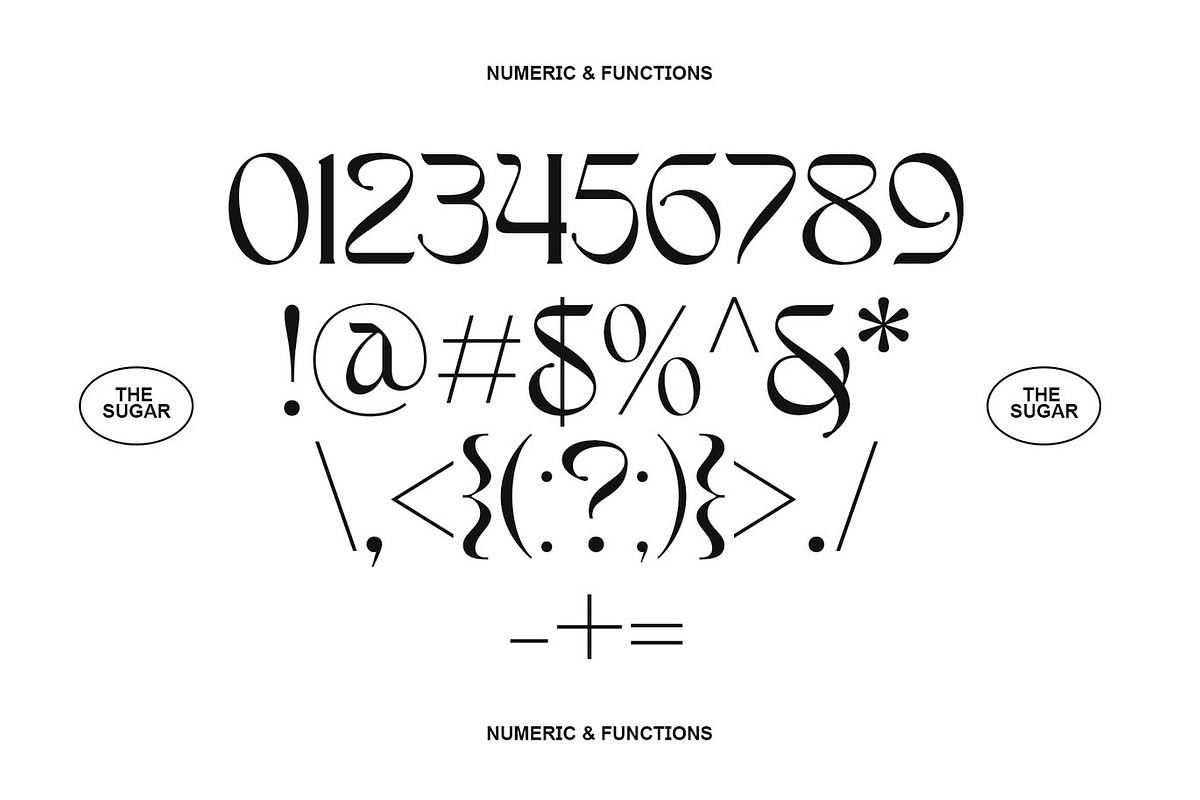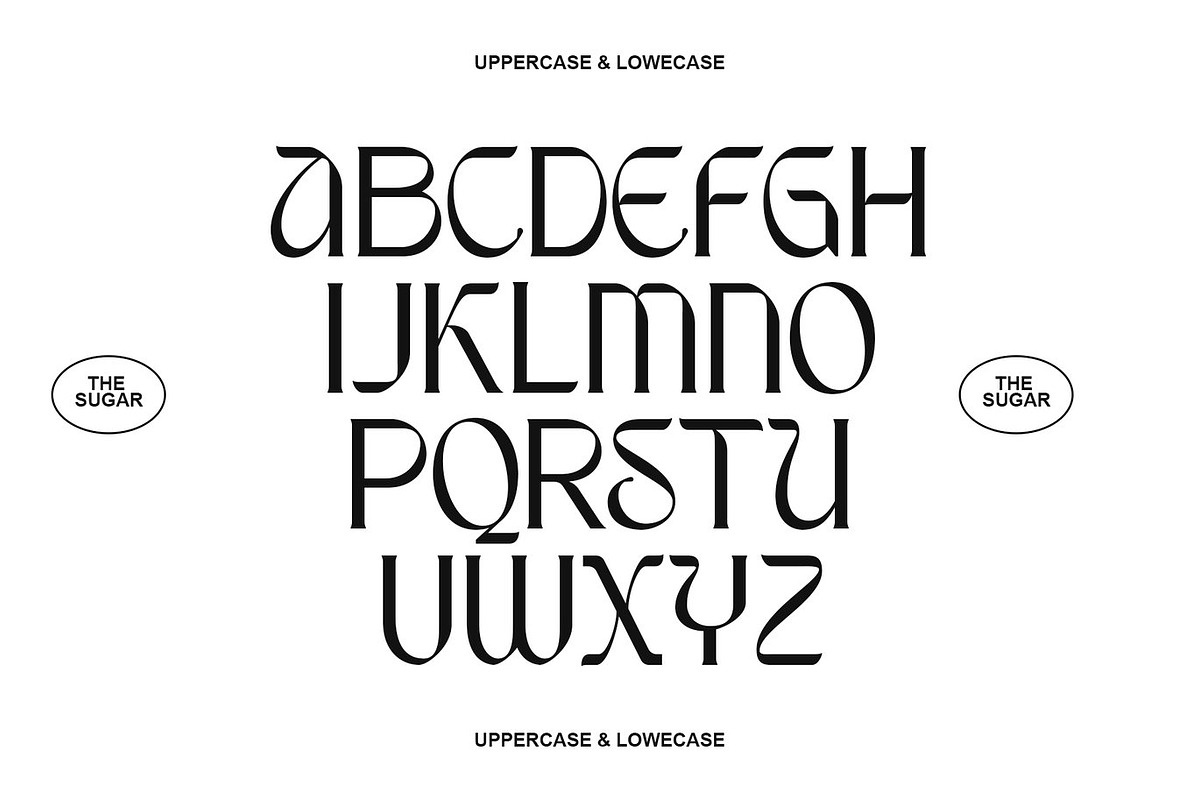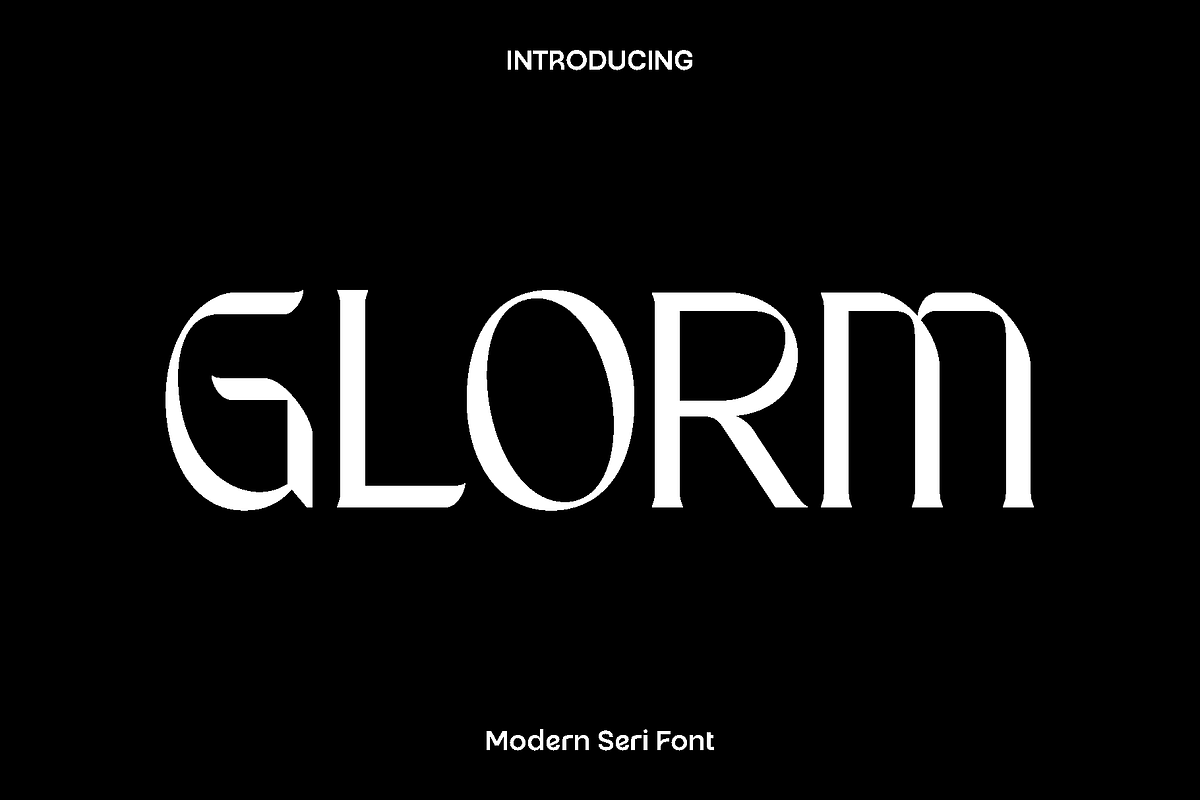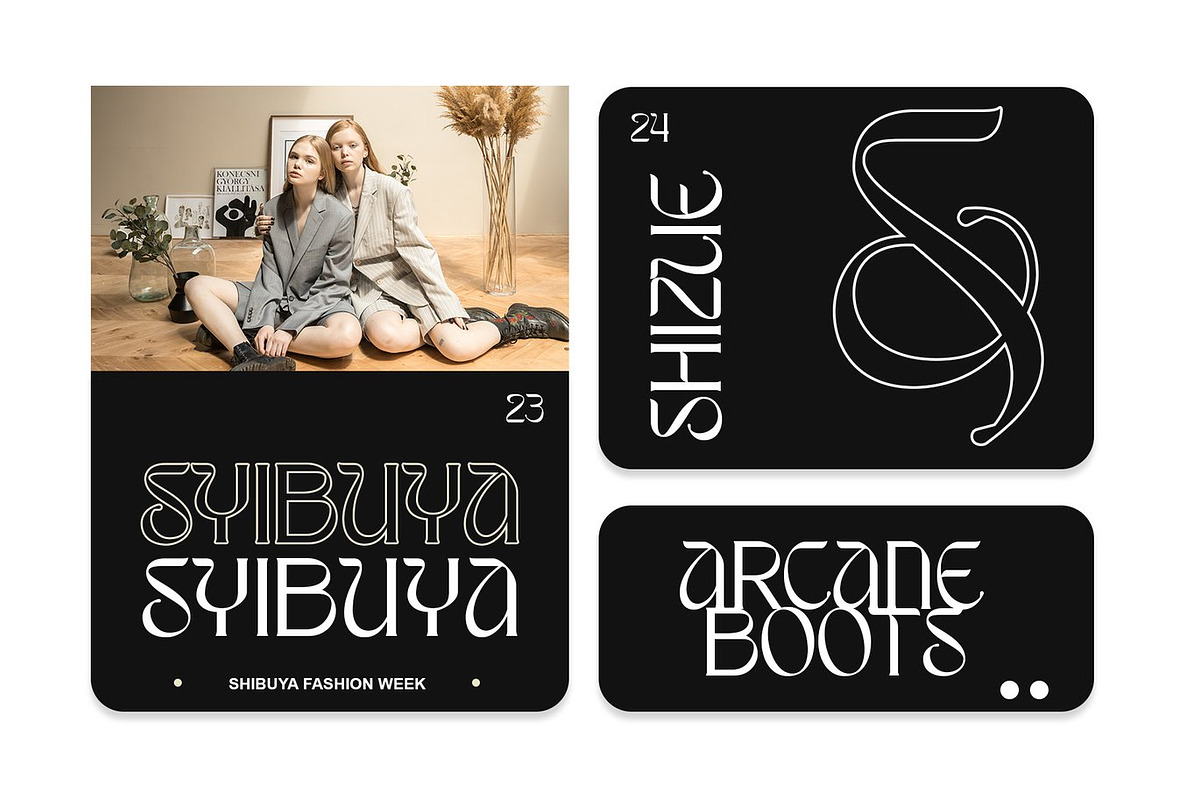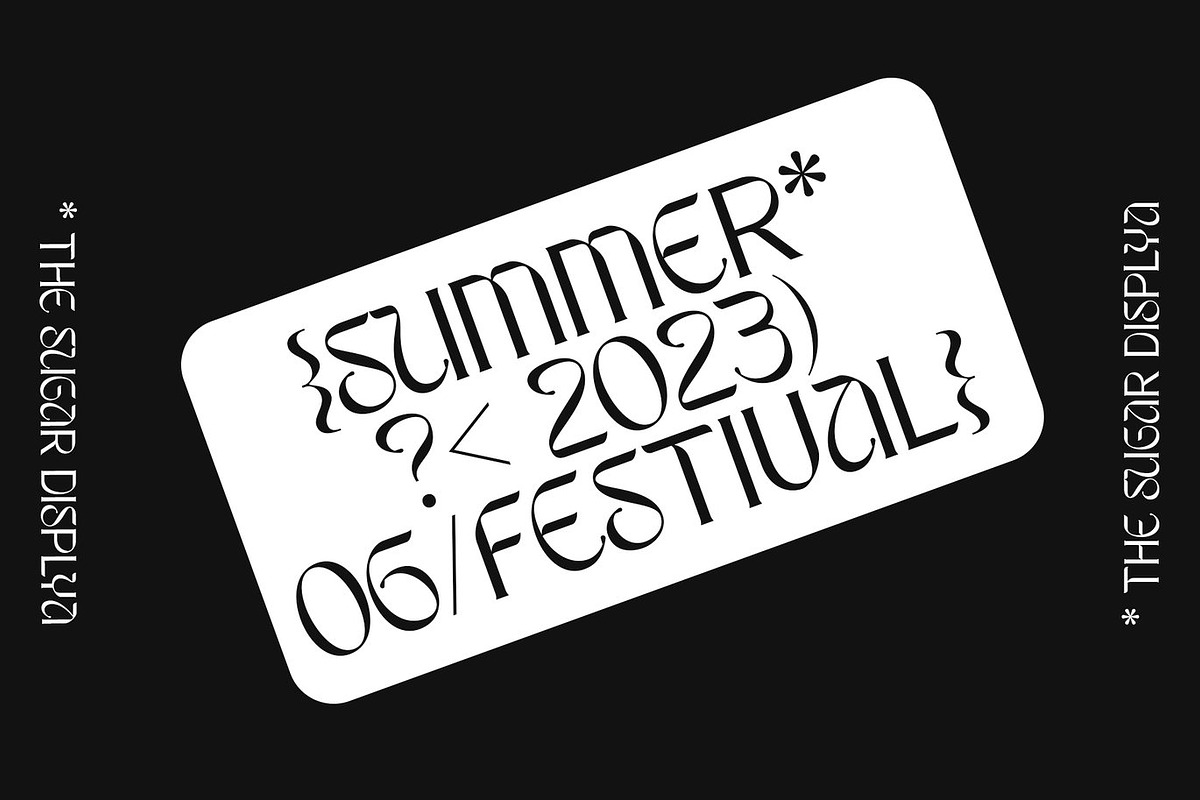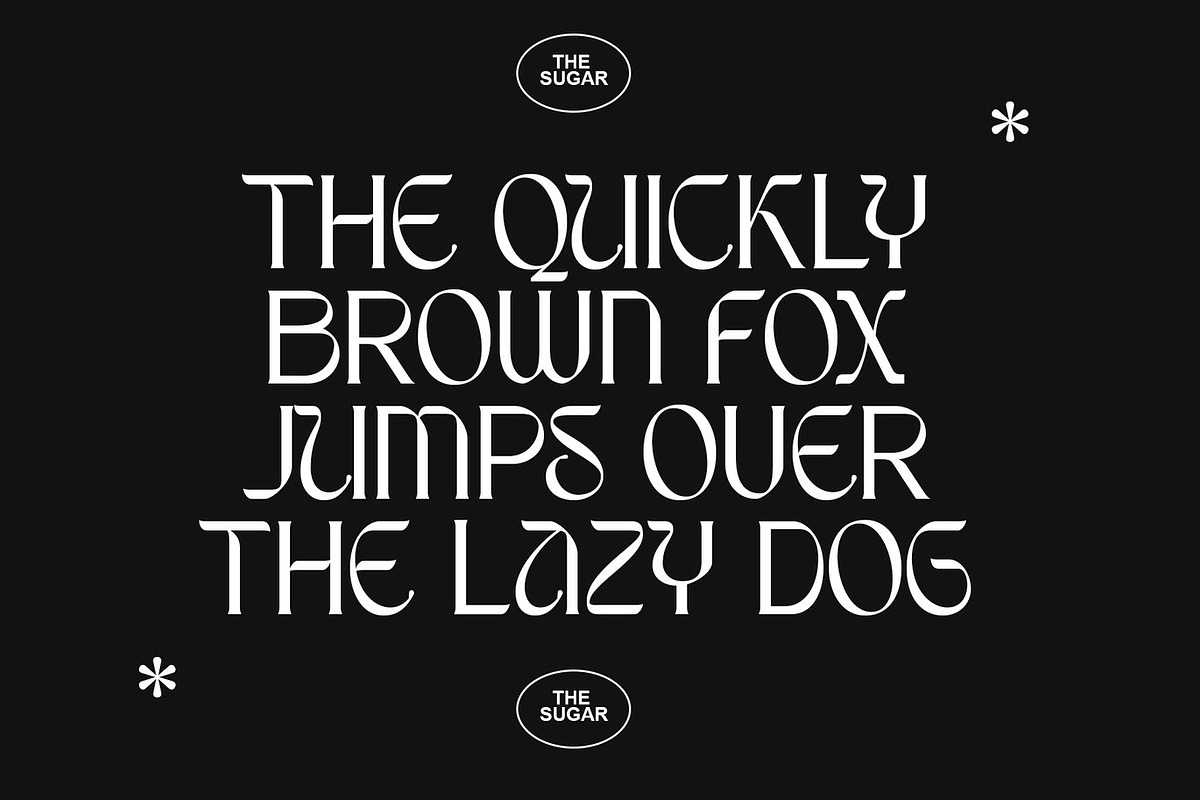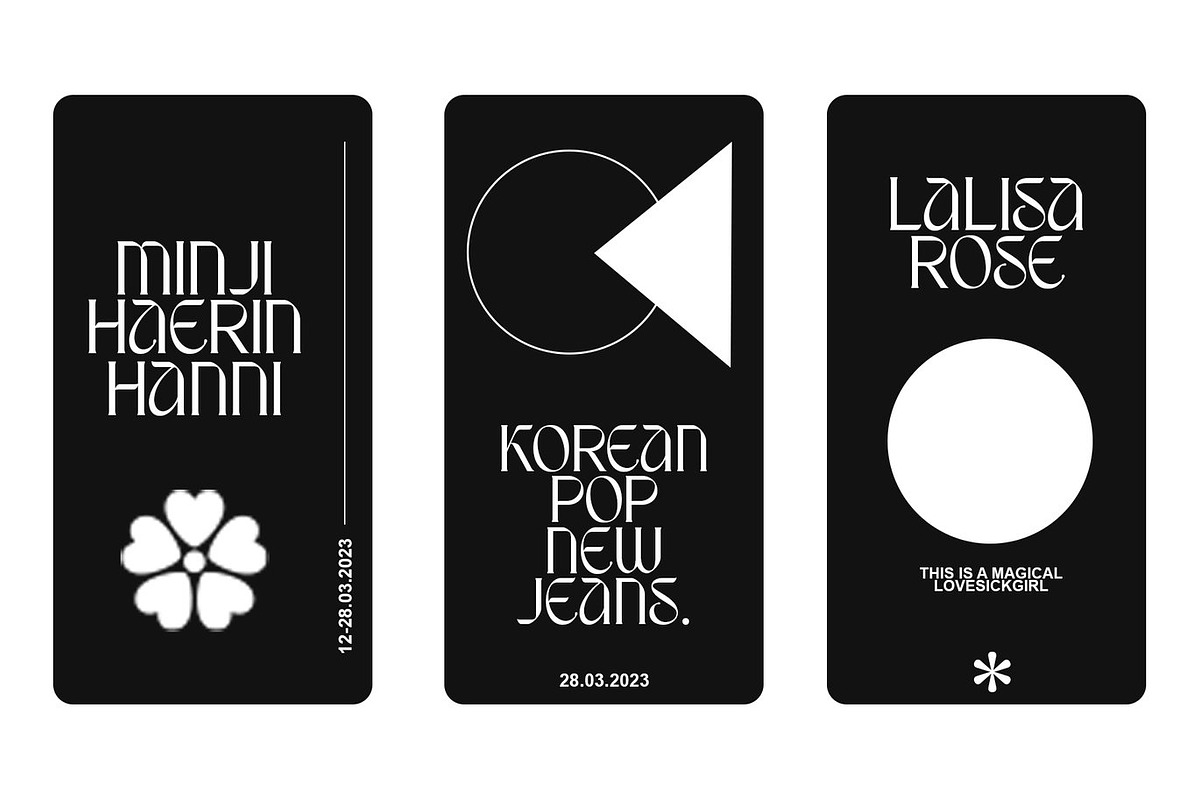
Glorm - Modern Serif
Glorm is a modern and versatile font designed to bring style and clarity to a wide range of creative projects. With its clean lines, balanced proportions, and contemporary design, Glorm offers a professional yet approachable aesthetic that makes any text look polished and intentional. Its elegant structure ensures readability while maintaining a distinctive personality, making it an ideal choice for both digital and print applications.
This font shines in diverse projects, from books, magazines, and blogs to logos, branding, posters, photography, advertisements, and inspirational quotes. Glorm’s versatility allows it to work seamlessly for headlines, body text, and display purposes, giving designers the flexibility to craft cohesive, eye-catching visuals across multiple platforms.
Every detail of Glorm is thoughtfully crafted, featuring uppercase and lowercase letters, numbers, punctuation, and ligatures to enhance typographic harmony. Its multilingual support ensures global usability, making it a practical and stylish addition to any designer’s toolkit. Glorm combines elegance and functionality, empowering creatives to bring their ideas to life with clarity and impact.
Glorm Font Features:
• Uppercase and lowercase letters
• Numbers, punctuation, and ligatures
• Multilingual support for global use
Glorm is the perfect choice for designers seeking a clean, modern, and versatile font that elevates every project with style and professionalism.